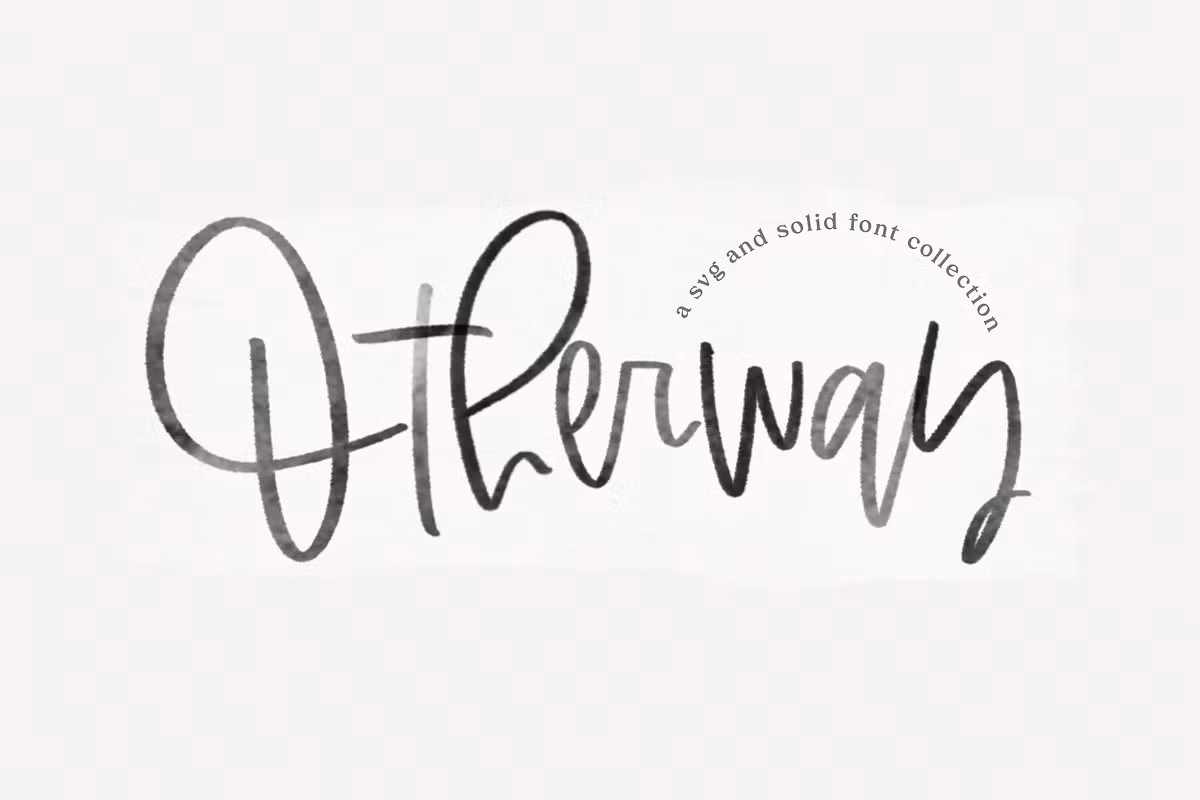
The Otherway - SVG & Solid Script Font Free Download is a unique and stylish script typeface that offers both an SVG version with intricate details and a solid version for versatile use. Perfect for logos, branding, invitations, packaging, and social media graphics, this font provides flexibility and creativity, allowing you to experiment with different styles for any project.
The SVG version of Otherway includes beautiful, textured details that give a handcrafted, authentic look, while the solid version offers a cleaner, more traditional script style, perfect for designs that need high legibility.
With uppercase and lowercase letters, numbers, punctuation, and multilingual support, this font is adaptable to a variety of creative applications.